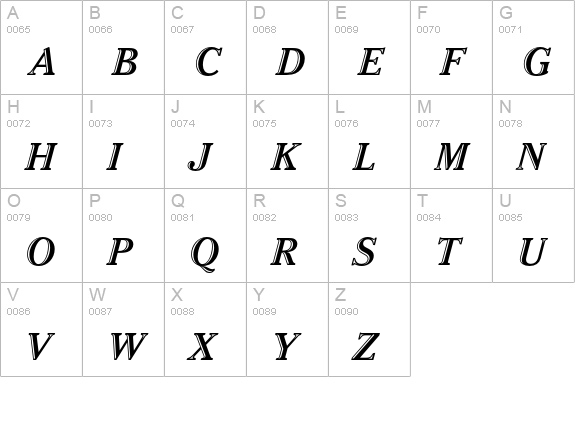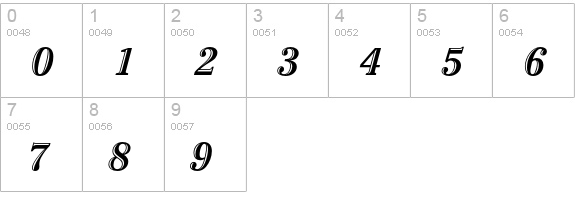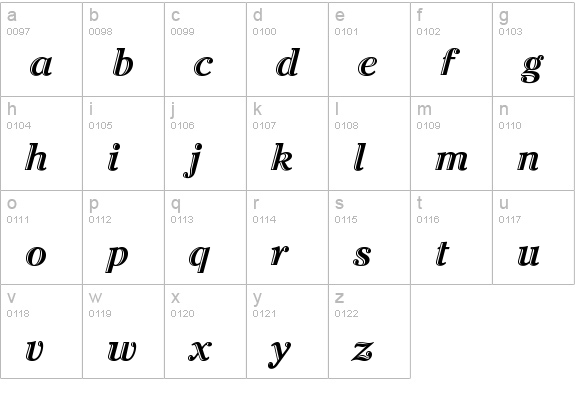
CheltenhamHandtEF-BoldItalic Font Details
CheltenhamHandtEF-BoldItalic is a striking and elegant font that exudes sophistication and style. Its bold and italic design adds a touch of flair to any project, making it perfect for headlines, titles, and branding. The unique characteristics of this font make it stand out from the crowd, giving your designs a distinctive edge. And the best part? CheltenhamHandtEF-BoldItalic is available for free download at FontsMarket.com. This means you can easily access this premium font without any cost, making it a valuable addition to your font collection. Don't miss out on the opportunity to enhance your designs with this beautiful typeface - download CheltenhamHandtEF-BoldItalic today and take your projects to the next level!